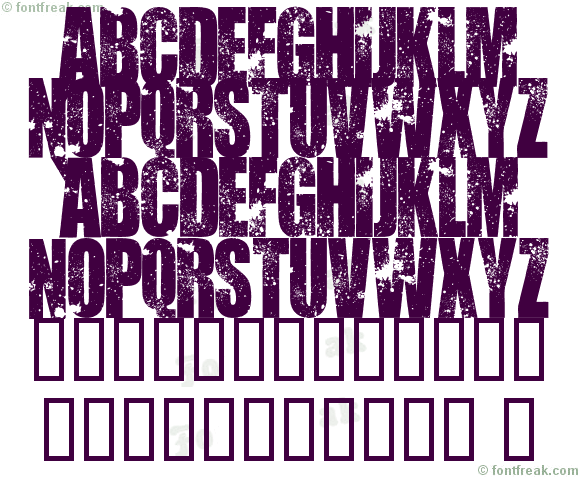
AbandoN
The AbandoN font by Chris Vile is a striking display typeface that falls within the decorative category, characterized by its rugged, distressed appearance. This unique font features a bold stroke weight with uneven edges, creating a sense of rawness and authenticity. The contrast between thick and thin strokes adds visual interest, while the spacing between characters is tight, enhancing its impactful presence. The decorative elements, including splatters and imperfections, contribute to a grungy aesthetic that captures attention.
AbandoN is well-suited for various creative applications. It excels in designs for music festival posters, where its boldness can convey energy and excitement. Additionally, the font makes a fantastic choice for urban-themed branding, such as streetwear labels or skate shops, where a rebellious vibe is essential. Its rugged style also lends itself to restaurant menus, particularly for establishments that want to emphasize a laid-back, casual atmosphere. Graphic designers will find it useful for album covers, especially in genres like punk or alternative rock, where the font's personality can resonate with the target audience.
The primary audience for the AbandoN font includes graphic designers, small business owners, and content creators looking to make a statement with their typography. Those seeking to create a distinctive brand identity or evoke a strong emotional response through their designs will appreciate its unique character.